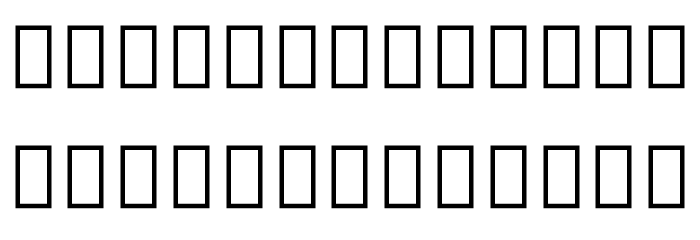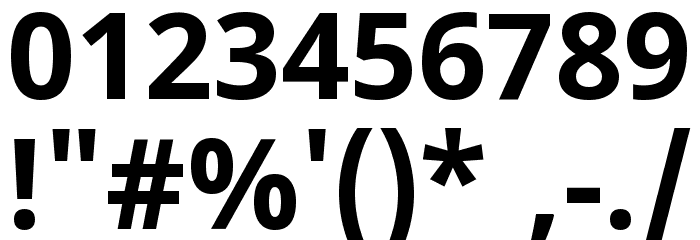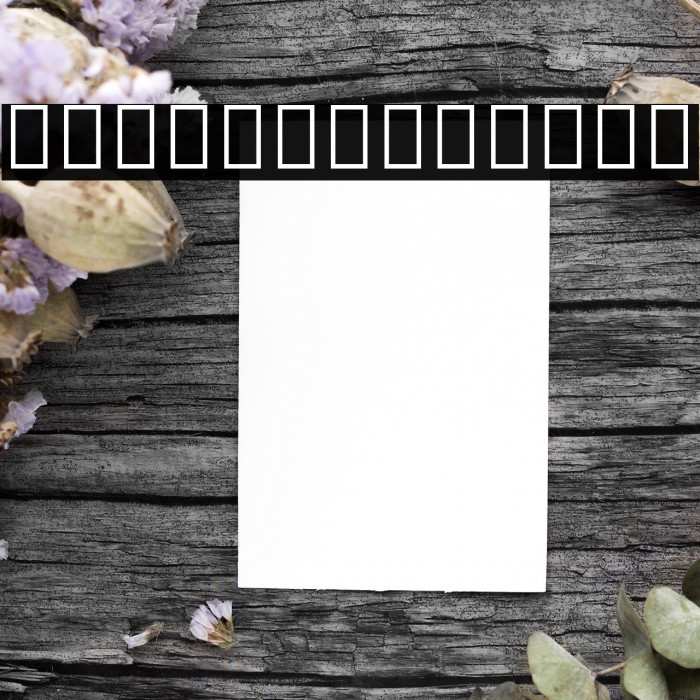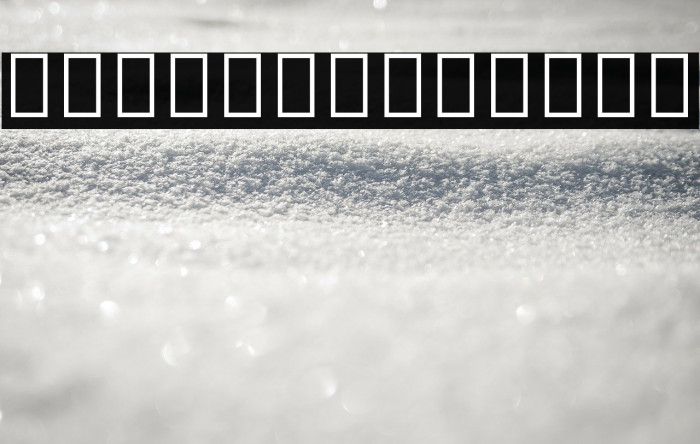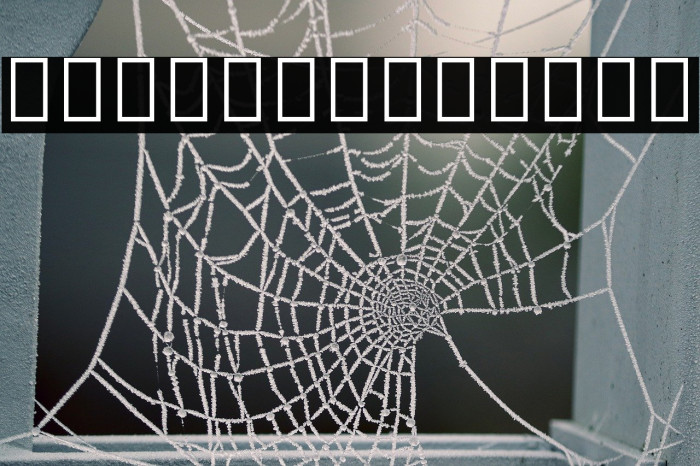
Noto Sans Malayalam UI Bold Font
This font is a bold, sans-serif typeface designed for clear readability and modern aesthetics. It features clean lines and a uniform stroke width, making it highly legible across various digital interfaces. The characters are well-proportioned, with a slightly condensed appearance that allows for efficient use of space without sacrificing clarity. The numerals are distinct and easy to read, while the special characters are straightforward and functional. This font is particularly suited for user interfaces and digital content where clarity and modernity are essential.
A bold, modern sans-serif font with clean lines and excellent readability.
- Proposed Projects: Ideal for user interfaces, digital content, websites, and mobile applications.
- Use Case: Headlines, User Interfaces, Digital Content